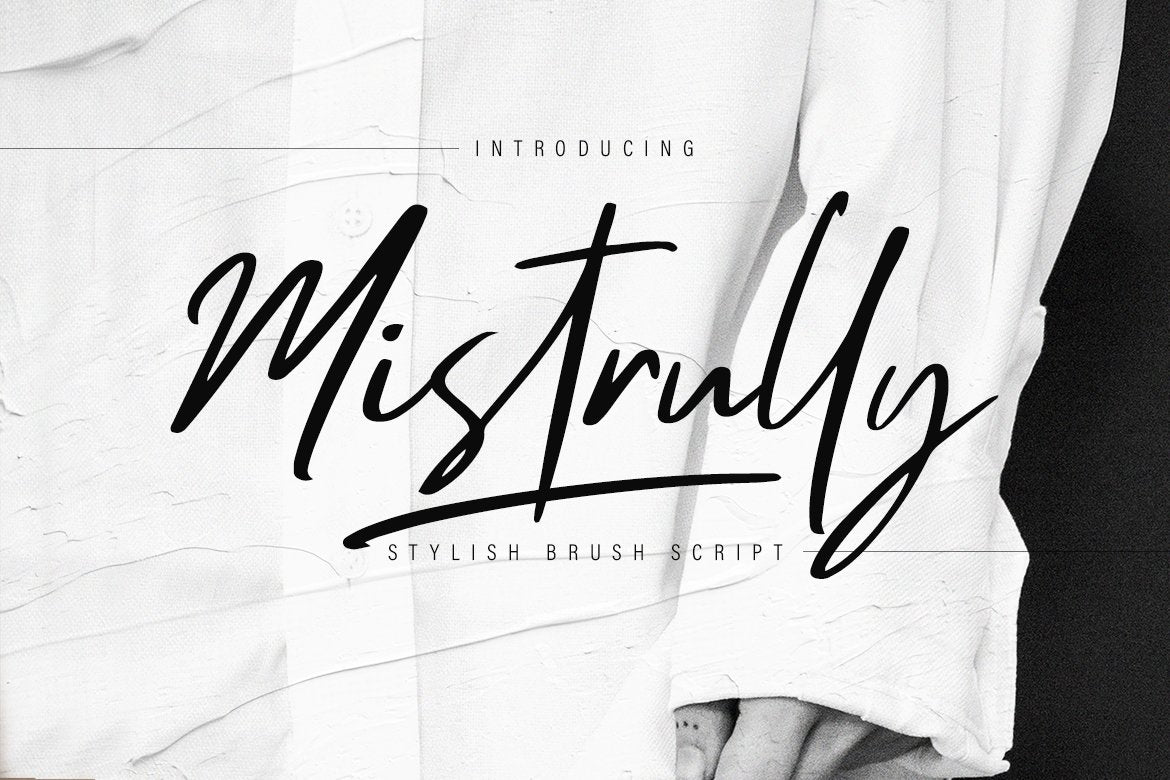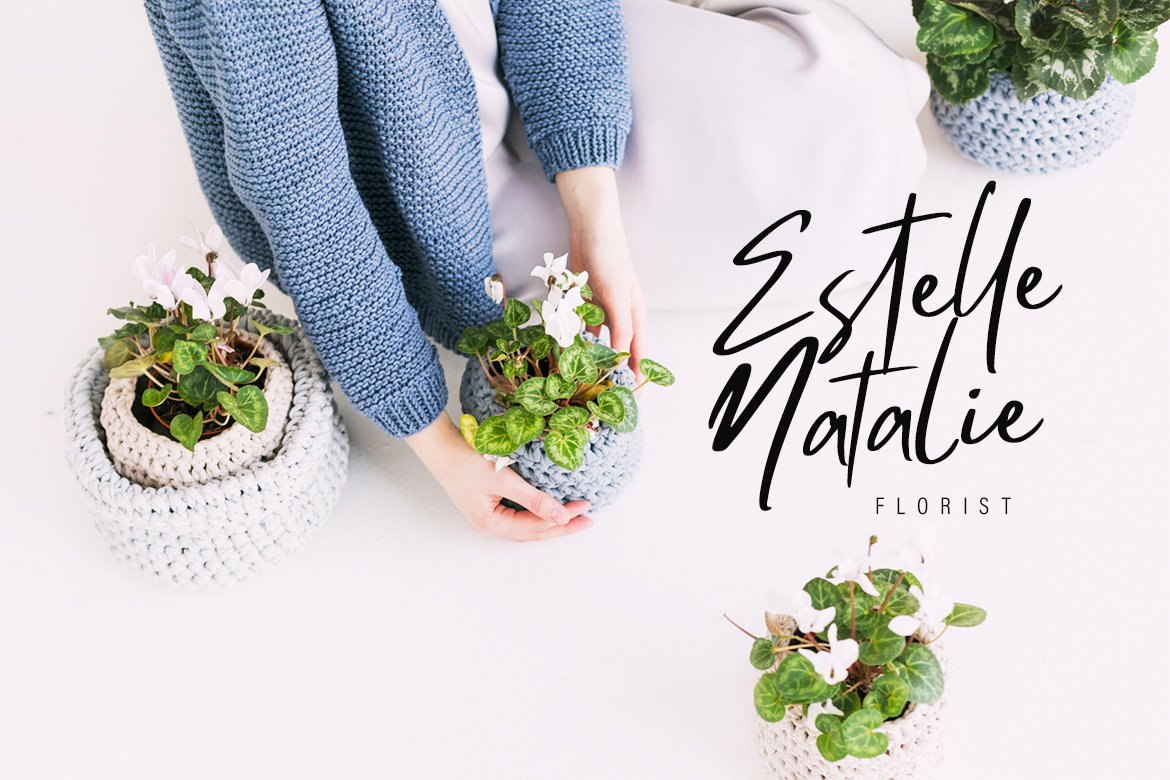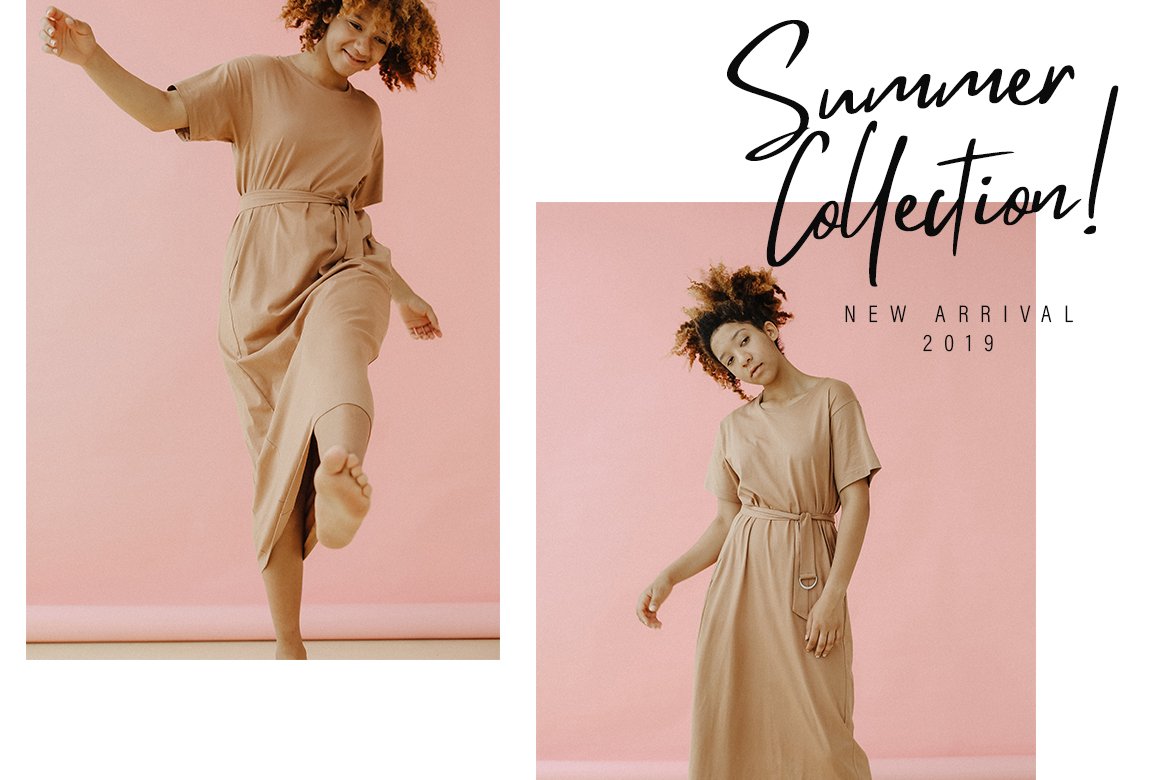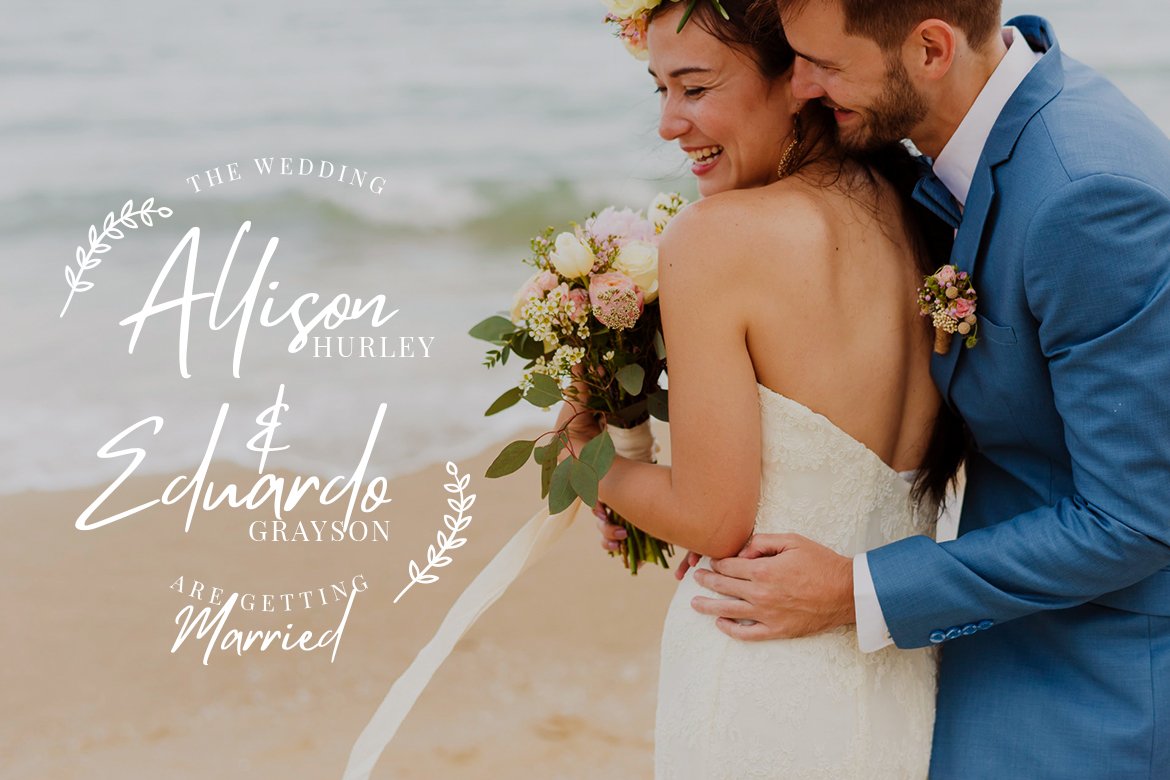
Mistrully - Free Brush Script Font
We're glad to feature this gorgeous Mistrully brush script font - free download. This free font file was found from the amazing source called Crella. Showcase your designs like a graphic design pro by adding a new touch with this fancy font.